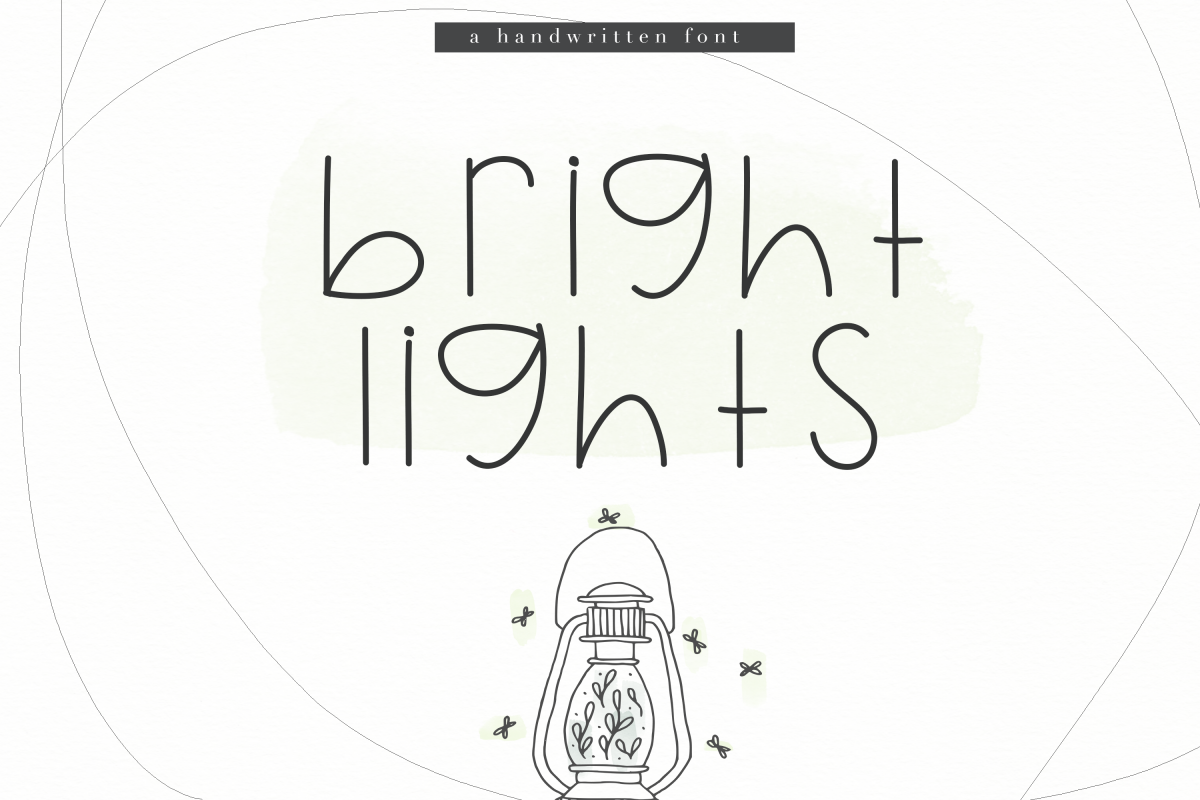
Bright Lights - A Cute Handwritten Font
BrightLights
Bright Lights is a cute handwritten font.
*It is an all lowercase font*
This font is perfect for quotes, headings, blogs, logos, invitations and more!
It is also great for children's designs!
This font does not include accent characters.